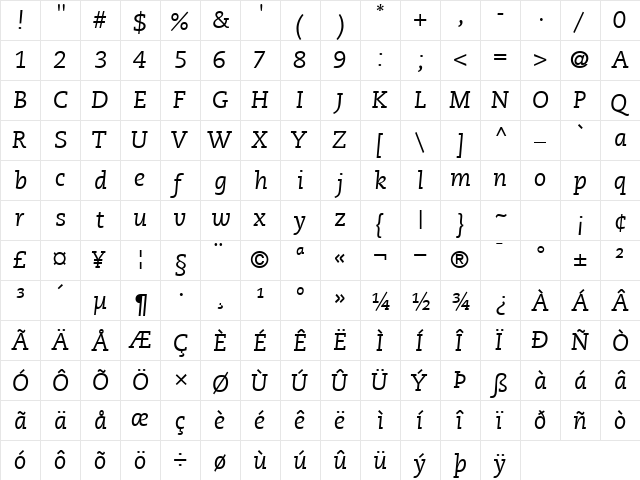
Design Context for MonologueSSK Typeface
MonologueSSK brings the precise, column-aligned rhythm of monospaced typography to designs that value technical clarity and systematic order. Its italic angle brings a sense of urgency and motion to the letterforms.